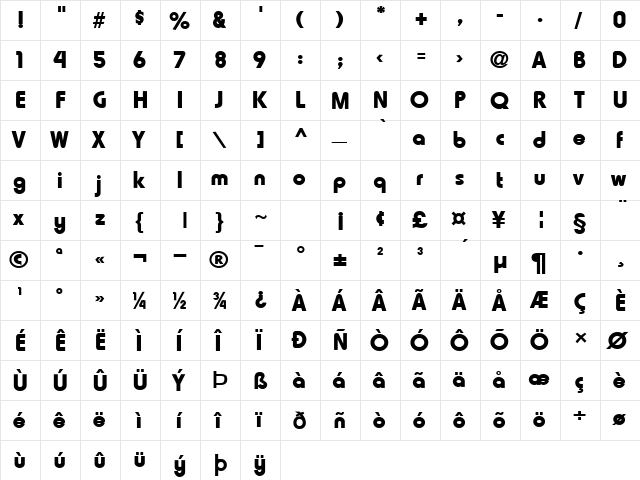
Lauren Bold
Design Context for Lauren Typeface
Lauren offers clean, dependable letterforms without strong stylistic allegiance, making it a practical choice for designers who need flexibility. The heavy weight commands attention and anchors typographic hierarchies.